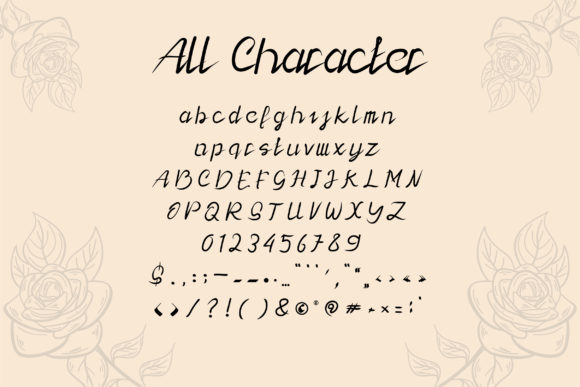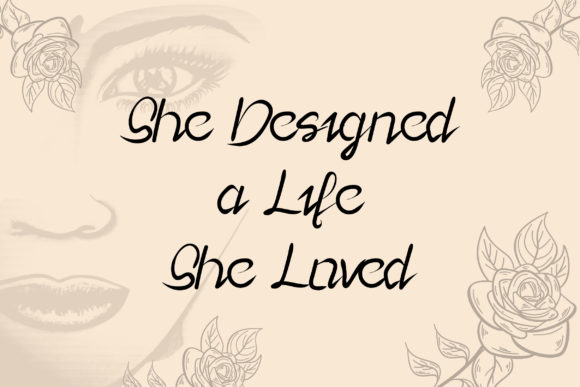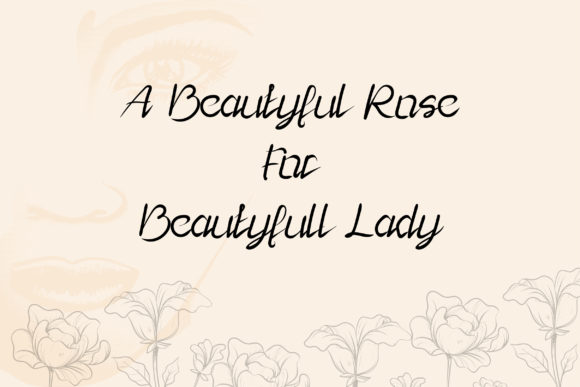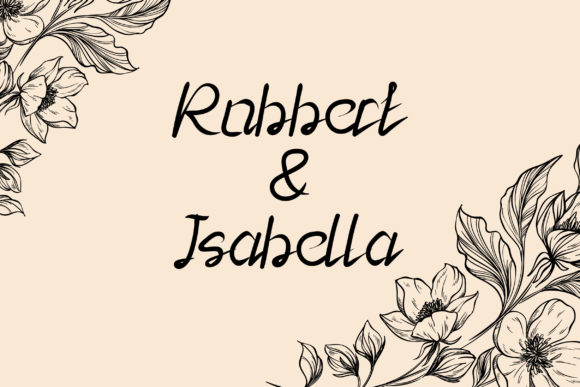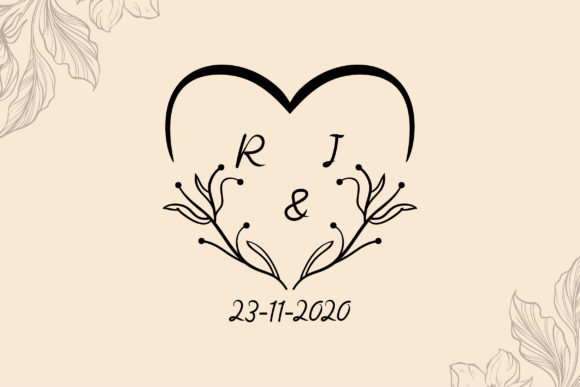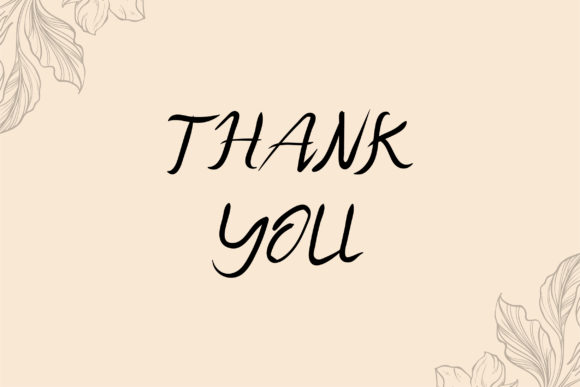
Lady Rose Font
Lady Rose is a playful and modern script font. It is the best choice for creating eye catching logos, branding and quotes. Every letter has a unique and beautiful touch, which will make your design come alive!